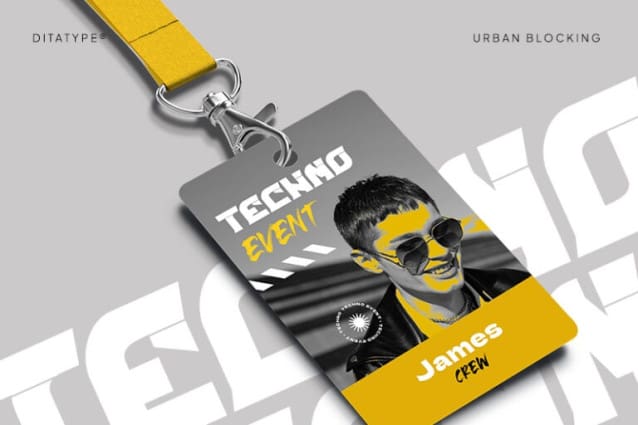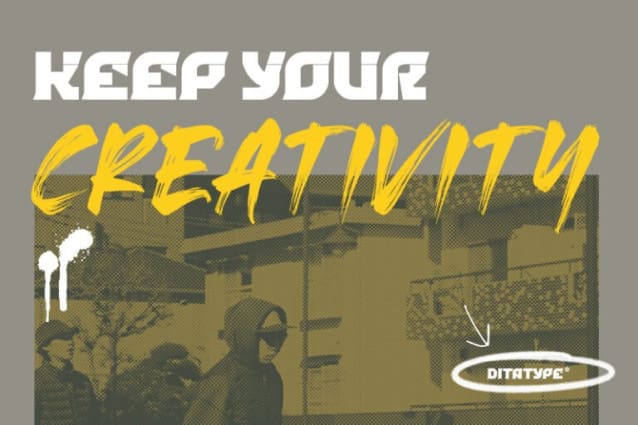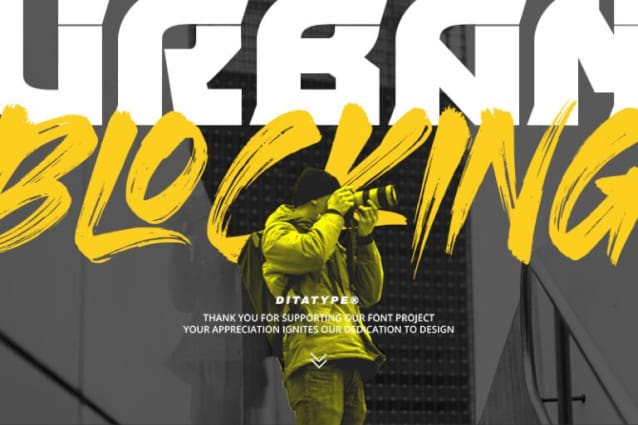
Urban Blocking Font
Urban Blocking Font is a dynamic duo font that combines the boldness of display fonts with the expressive strokes of brush fonts. The display font in Urban Blocking is made in uppercases and a bold weight, making a bold statement with its strong presence and commanding presence. Each letter is meticulously crafted with clean lines and sharp angles, creating a modern and urban aesthetic.
Complementing the display font is the brush font, which also boasts uppercases and a bold weight. However, the brush font adds a touch of texture and spontaneity to the mix, with expressive strokes and rough edges that evoke the energy and vibrancy of urban life. Together, these two fonts in Urban Blocking create a harmonious balance between boldness and expressiveness.